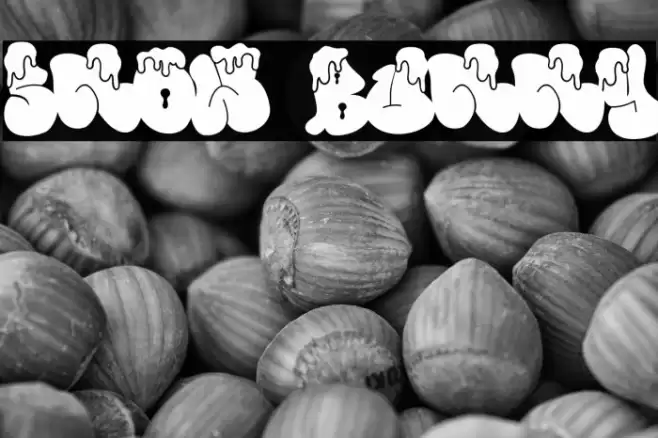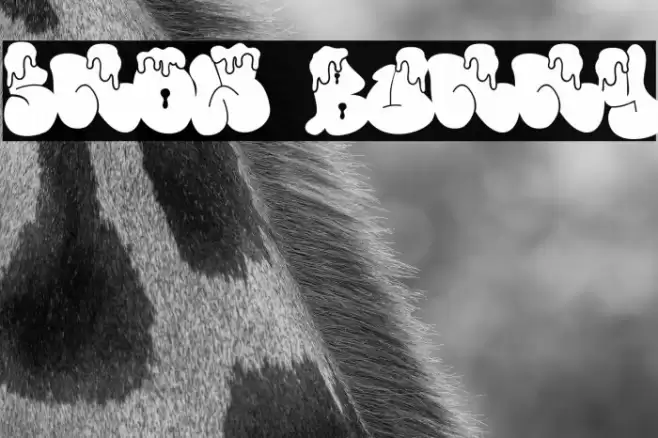
Snow Bunny Font
Snow Bunny Description
This playful and whimsical font features bold, rounded characters that appear to be dripping with a liquid-like substance, reminiscent of melting snow or icing. The unique design gives each letter a dynamic and fluid appearance, making it stand out with its decorative and eye-catching style. The font maintains a consistent thickness throughout, with no sharp edges, contributing to its soft and approachable look. The characters are tightly spaced, enhancing the cohesive and compact feel of the text. This font is ideal for projects that require a fun and creative touch, such as holiday-themed designs, children's book covers, or playful branding materials.
A playful, dripping font with bold, rounded characters ideal for creative projects from Uncategorized fonts.
- Proposed Projects: Holiday-themed designs, children's book covers, playful branding materials.
- Character Spacing: Tight